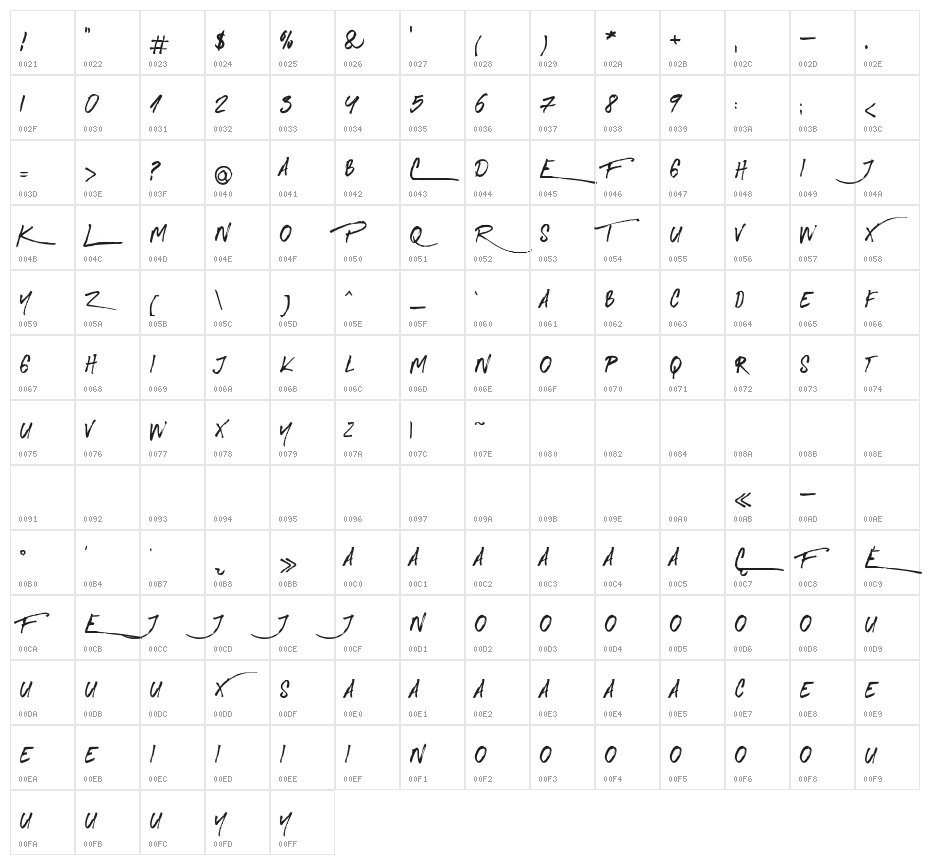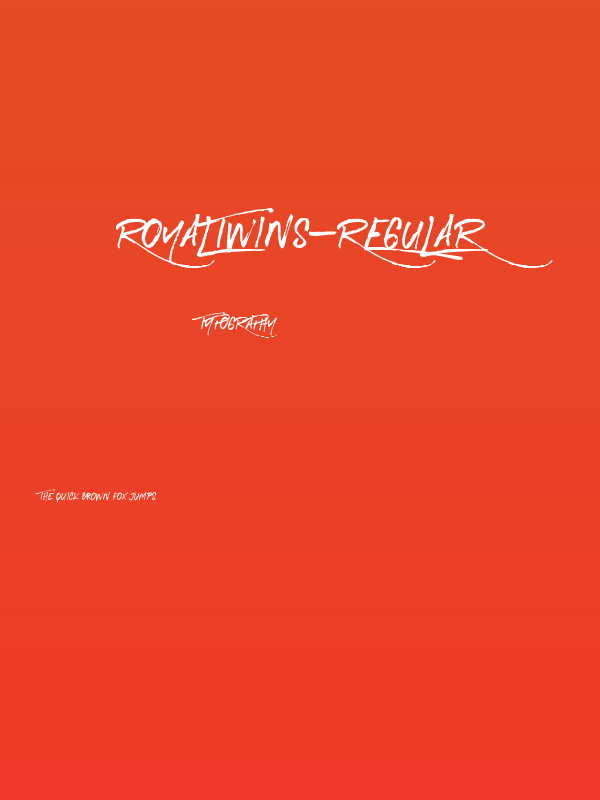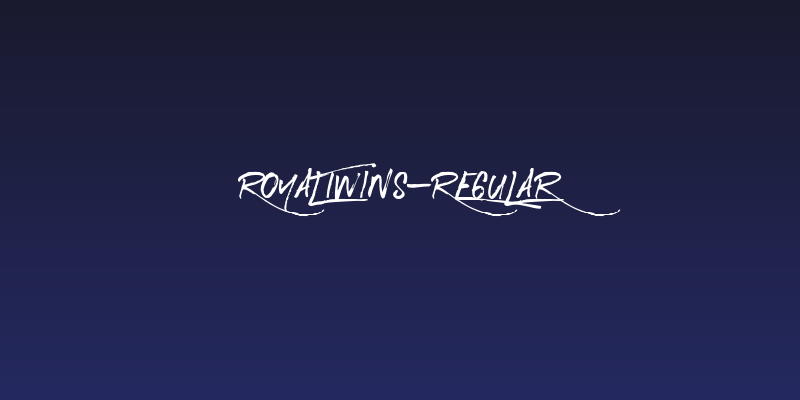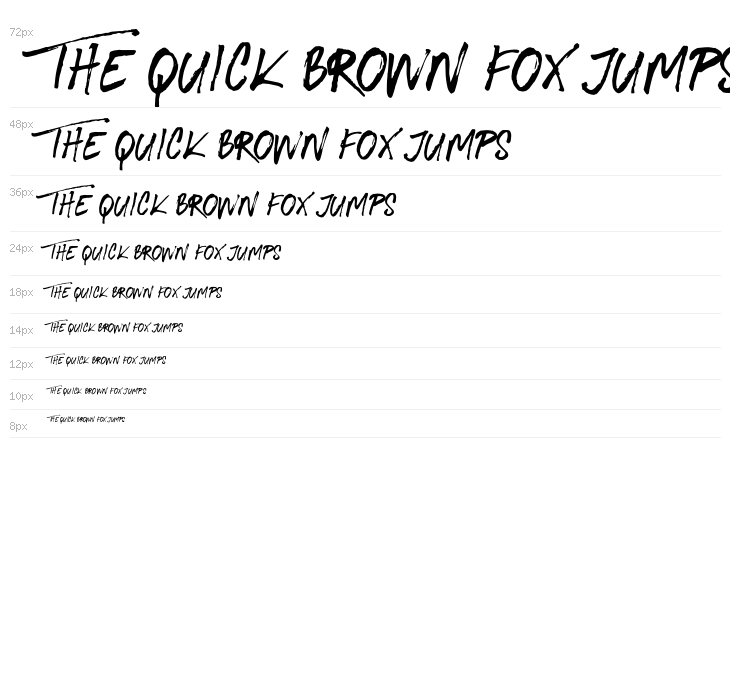
RoyalTwins-Regular Font
RoyalTwins-Regular Description
This font exhibits a bold, expressive style with a handwritten appearance. The strokes are dynamic and fluid, giving it an energetic and artistic feel. The uppercase and lowercase letters maintain a consistent flow, while the numbers and special characters complement the overall design. The irregularities in the stroke widths add a personal touch, reminiscent of brush lettering. This font is ideal for projects that require a creative and informal look, such as posters, invitations, or branding materials that aim to convey a sense of individuality and flair.
Proposed ProjectsIdeal for creative projects like posters, invitations, and branding materials.